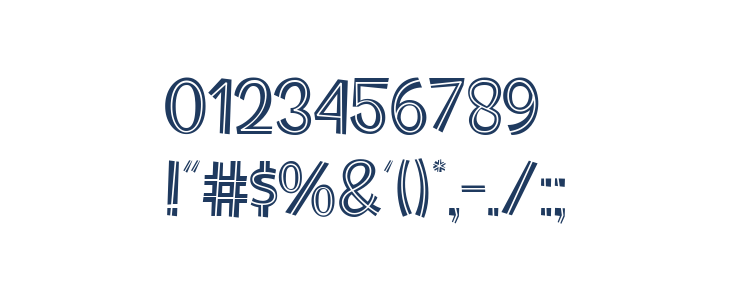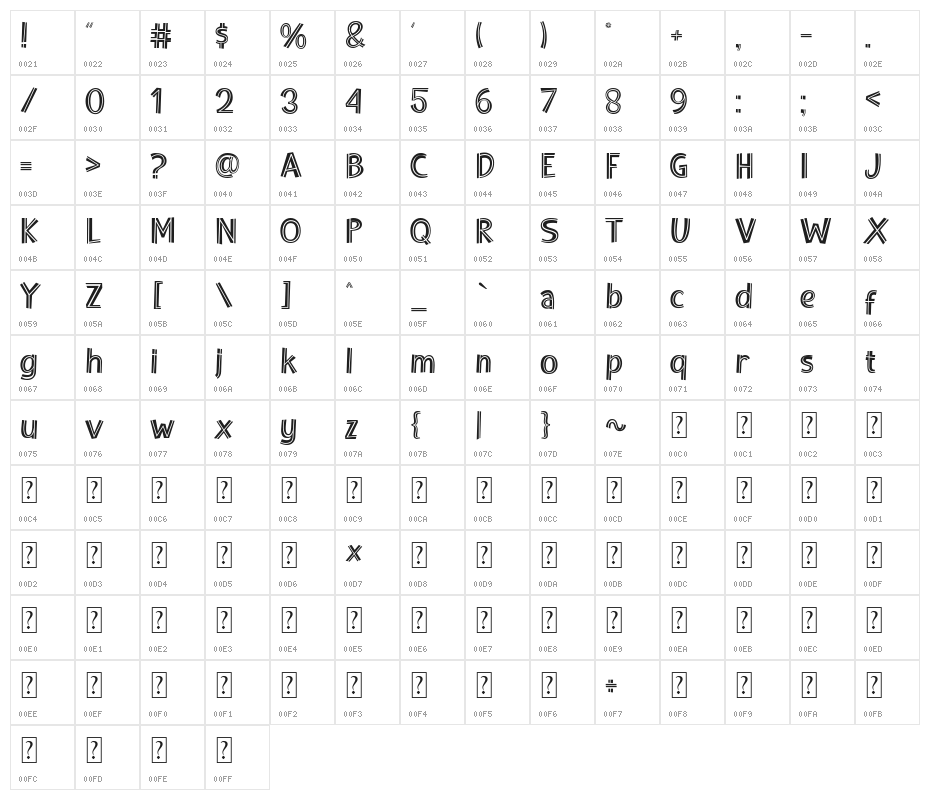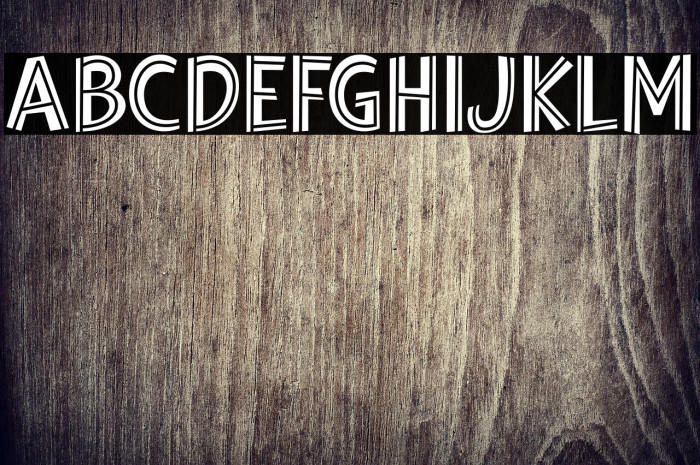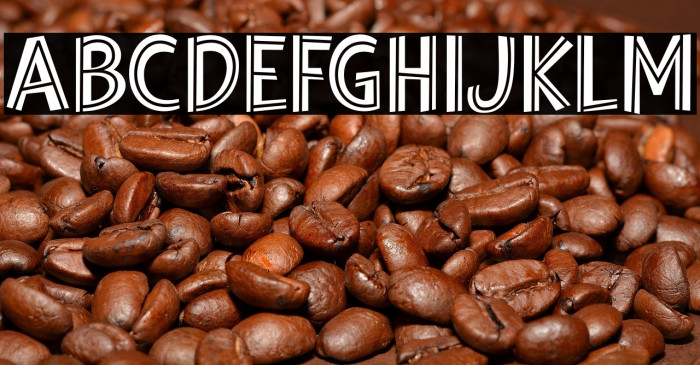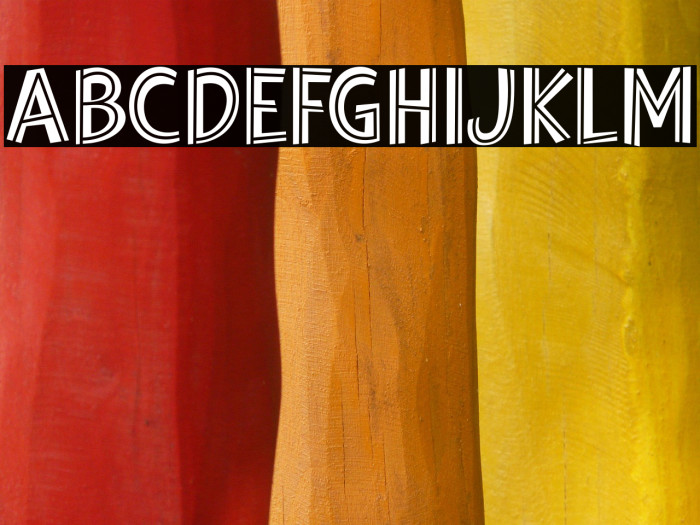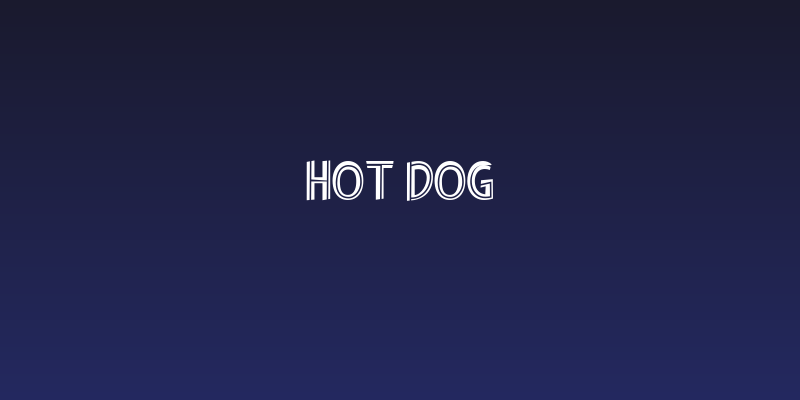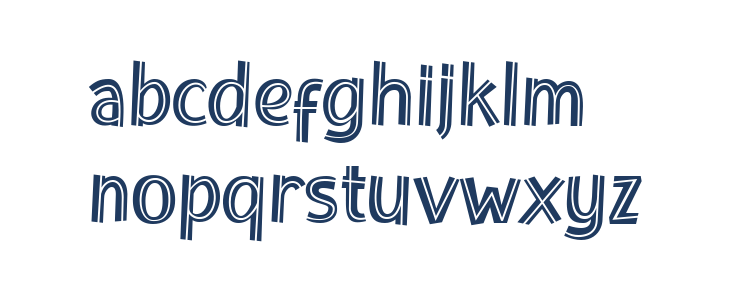
Hot Dog Font
| Общий стиль | Retro, Playful |
| Область применения | Headlines, Posters, Branding |
| Рекомендуемые проекты | Ideal for vintage-themed posters, playful branding, and eye-catching headlines. |